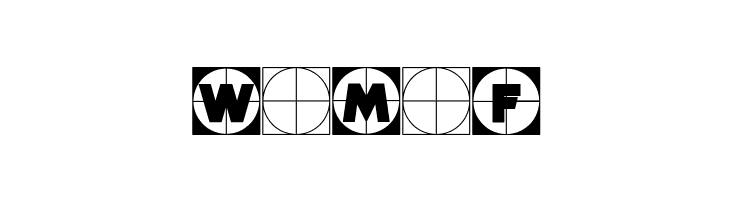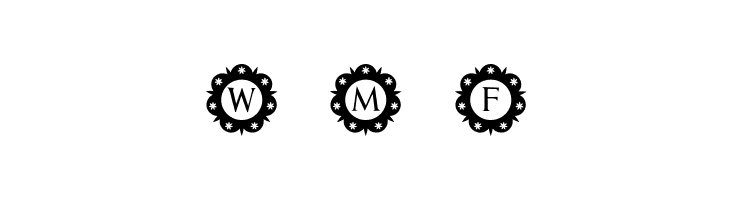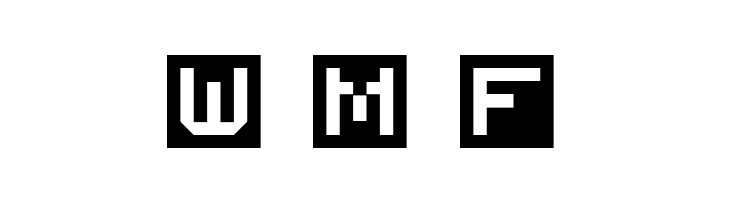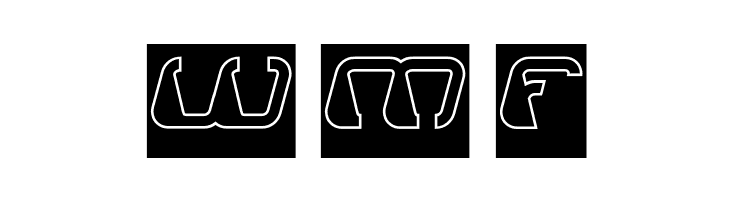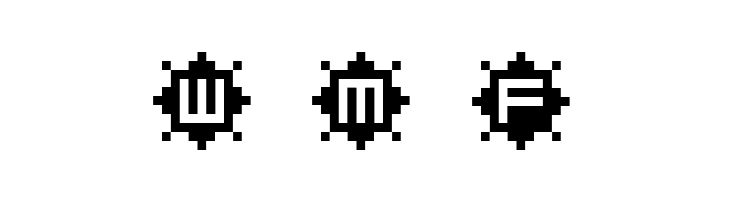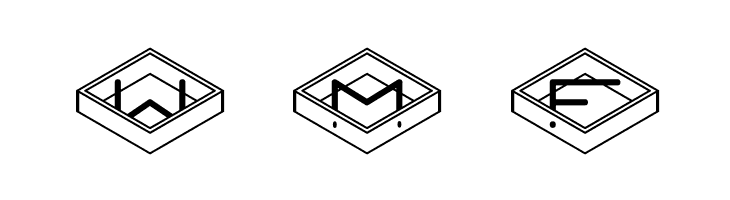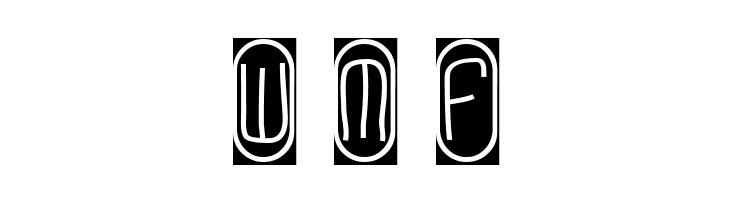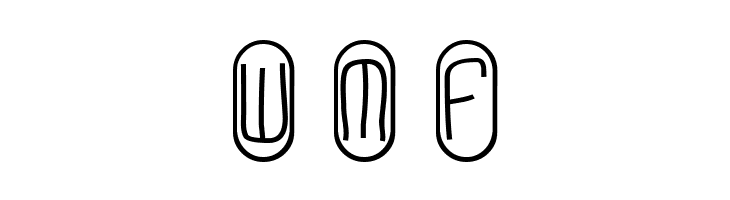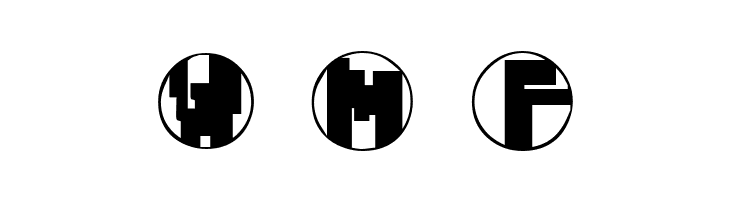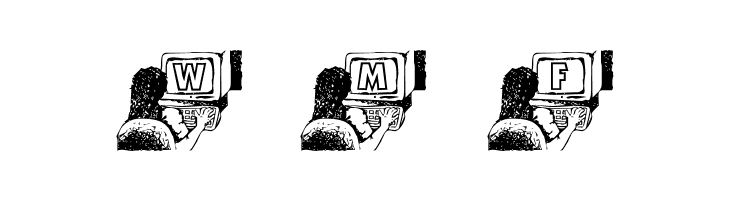
A bold stencil font with geometric, blocky letterforms enclosed in squares.
A bold, blocky font with a digital, pixelated style enclosed in squares.
A decorative font with bold characters enclosed in ornate, gear-like frames.
A bold, geometric font with characters enclosed in grid-like blocks, featuring circular elements.
A decorative font with bold characters enclosed in ornate circular frames.
A playful font with characters enclosed in hand-drawn circles, offering a whimsical and informal style.
A modern, geometric font with characters enclosed in circles, offering a futuristic look.
A decorative font with characters enclosed in intricate triangular designs.
A bold, geometric font with characters enclosed in squares, offering a modern, pixelated style.
A whimsical, bold font with playful, uneven letterforms enclosed in tilted squares.
A decorative font with characters enclosed in heart shapes, perfect for romantic themes.
A futuristic, geometric font with hollow, inverse letterforms enclosed in squares.
A bold, geometric font with characters enclosed in square outlines, offering a modern and mechanical look.
A bold, geometric font with angular shapes and enclosed characters.
A pixelated, decorative font with characters enclosed in a gear-like border, evoking a retro digital feel.
A decorative font with bold characters enclosed in vintage-style squares.
A playful, decorative font with unique patterns and textures in each letter.
A playful, bold font with characters enclosed in circles, offering a unique and cohesive look.
A modern, geometric font with characters enclosed in diamond shapes.
A decorative font with characters enclosed in ovals, offering a bold and playful style.
A playful, bubble-like font with characters enclosed in ovals, perfect for creative projects.
A playful, heart-themed decorative font with bold characters enclosed in shield shapes.
A playful, heart-enclosed font with a handwritten, brush-like style.
A decorative font with characters enclosed in heart shapes, offering a playful and romantic style.
A playful, heart-enclosed handwritten font perfect for romantic or themed designs.
A geometric, angular script with uniform line thickness enclosed in square boxes.
A bold, hexagon-enclosed decorative font with a modern, playful style.
( Gregoryfonts - www.geocities.com/soho/coffeehouse/9609/fonts/fonts.html )
A bold, futuristic font with geometric, techno-inspired characters enclosed in circles.
( Gyrl Friday - katgyrl.com/fonts/ )
A decorative font featuring playful, hand-drawn icons in circular enclosures.
( John K. Barrow )
A playful, hand-drawn style font with bold, organic strokes.
( Kat's Fun Fonts - www.katsfunfonts.com/ )
A playful, decorative font with characters enclosed in textured squares, ideal for creative projects.
( Katz Fontz - katzfonts.50megs.com/kg.html )
A whimsical font with characters enclosed in cartoonish bear shapes, perfect for playful designs.
A decorative font with characters enclosed in vintage-style frames.
A whimsical font with characters enclosed in heart shapes with wings.
An ornate decorative font with characters enclosed in rose baskets.